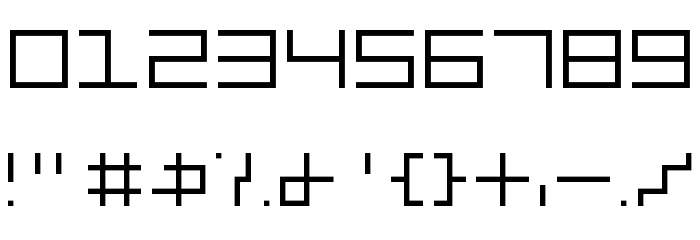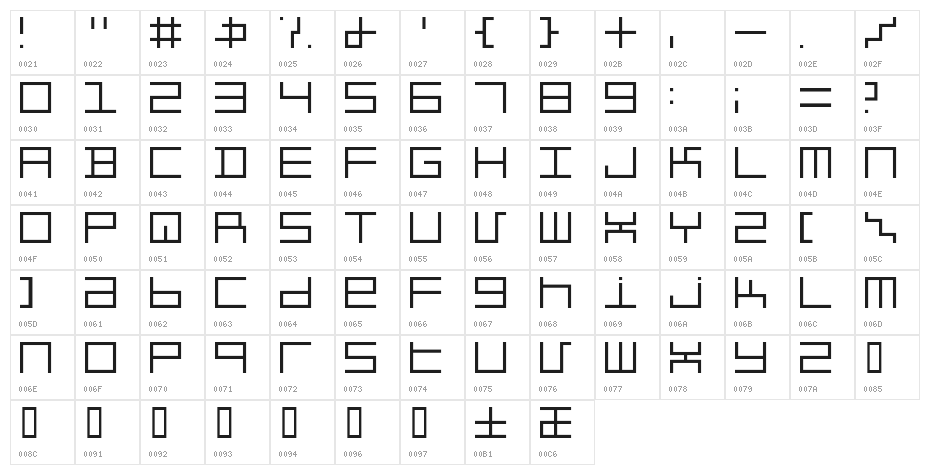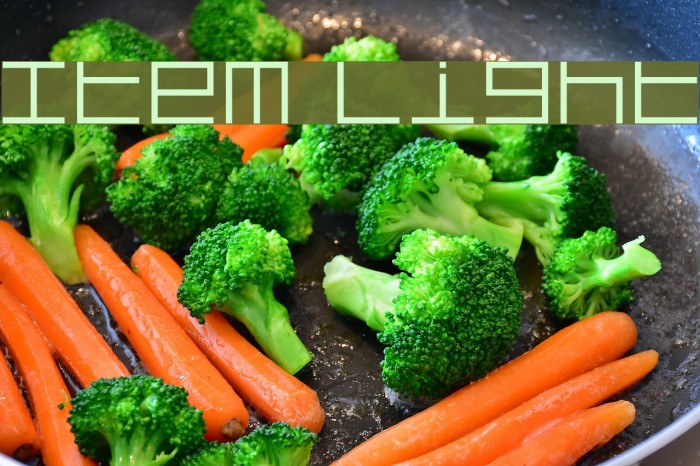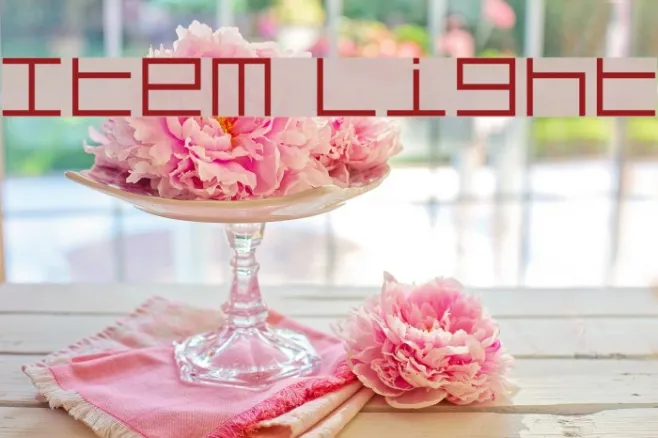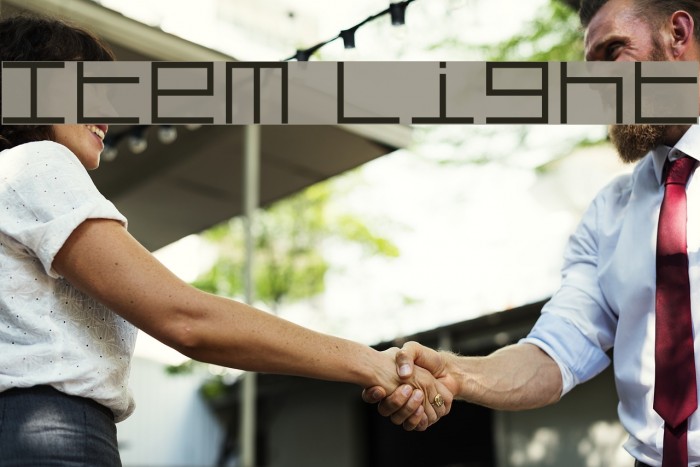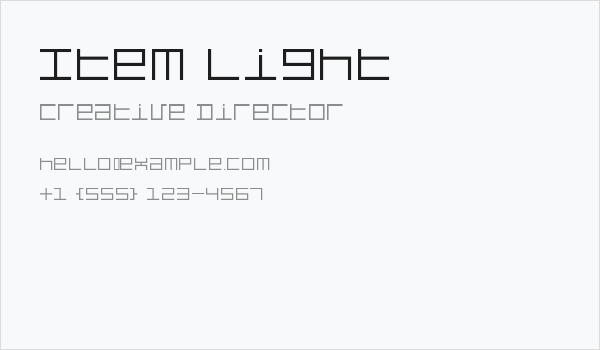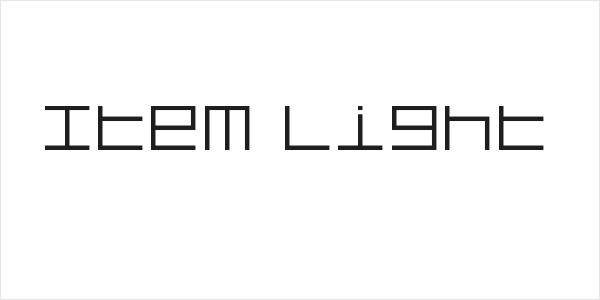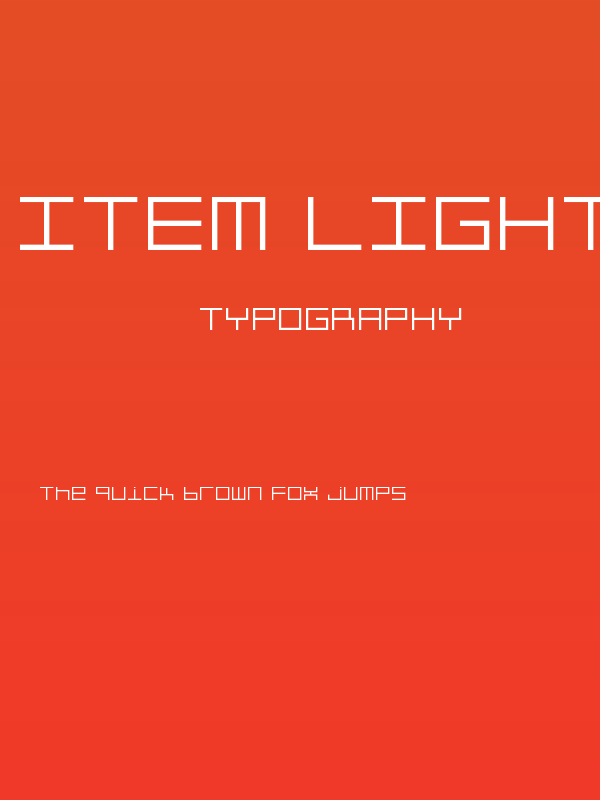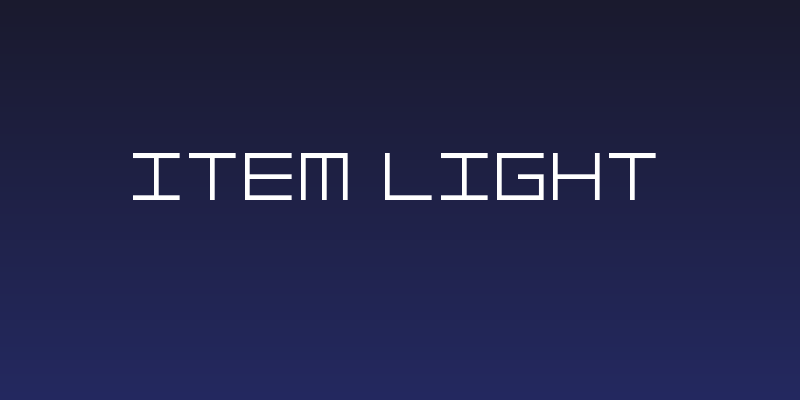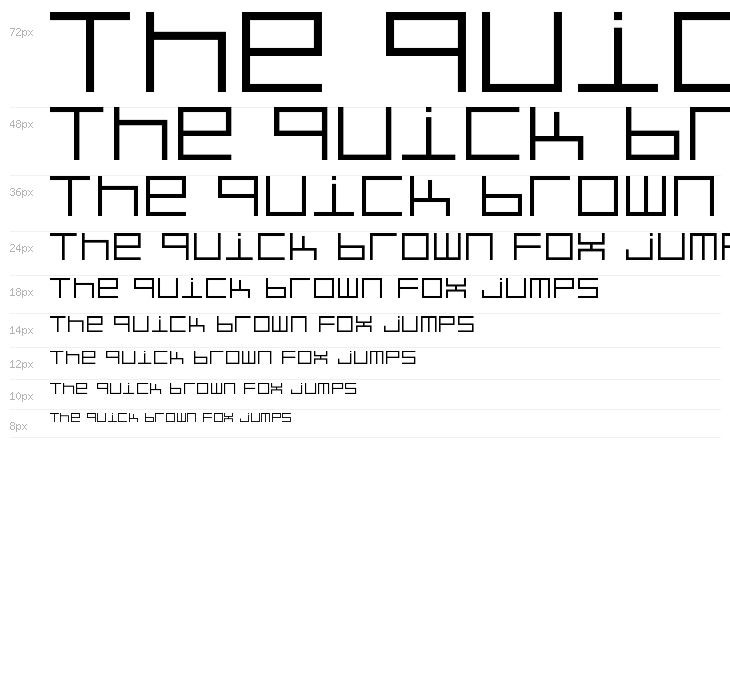
Item Light Font
Item Light Description
This font features a geometric, grid-like design with a modern and technical appearance. Each character is constructed with straight lines and right angles, giving it a structured and precise look. The uniformity in stroke width across all characters contributes to a clean and minimalistic aesthetic. The uppercase and lowercase letters maintain a consistent height, enhancing readability and creating a cohesive visual flow. The numerals and special characters follow the same design principles, ensuring a harmonious integration with the alphabet. This font's style is reminiscent of digital or electronic displays, making it suitable for technology-related applications.
Use CaseLogos, Digital displays, Technology branding
Proposed ProjectsIdeal for technology branding, digital interfaces, and modern graphic design projects.